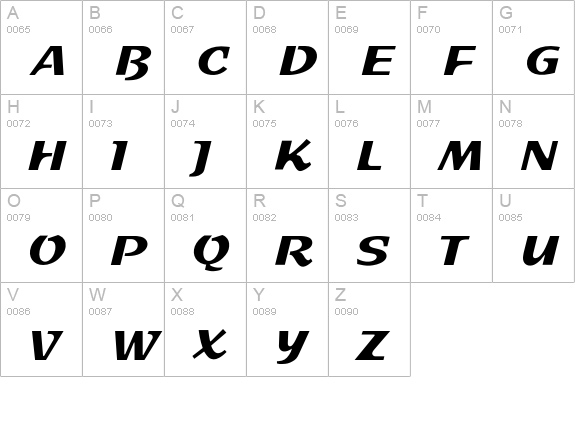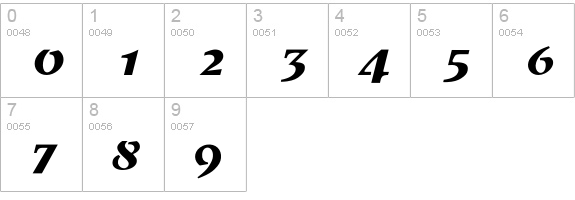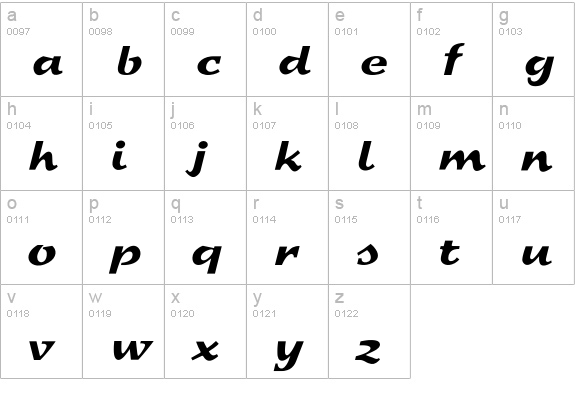
Sprint Font Details
Introducing Sprint font, a sleek and modern typeface that effortlessly combines elegance with a touch of playfulness. With its clean lines and versatile design, Sprint font is perfect for a wide range of creative projects, from branding and logo design to advertising and web design. But what sets Sprint font apart is not just its stunning aesthetics - it's the fact that it is available for free! That's right, Sprint font can be freely downloaded at FontsMarket.com, making it accessible to designers and enthusiasts alike, without breaking the bank. Whether you're a professional designer looking for a fresh addition to your font library or a hobbyist searching for the perfect font for your personal projects, Sprint font is a fantastic choice. Its versatility allows it to shine in both print and digital mediums, ensuring that your designs will always make a lasting impression. With a wide range of weights and styles to choose from, including regular, bold, italic, and more, Sprint font offers endless possibilities for customization and creativity. Its legibility and readability make it suitable for both headlines and body text, ensuring that your message is effectively delivered in a visually appealing manner. So why wait? Experience the beauty and functionality of Sprint font today by visiting FontsMarket.com and downloading it for free. Enhance your designs, elevate your brand, and make a lasting impression with this exceptional typeface. Sprint font is here to help you sprint towards success in your design endeavors.